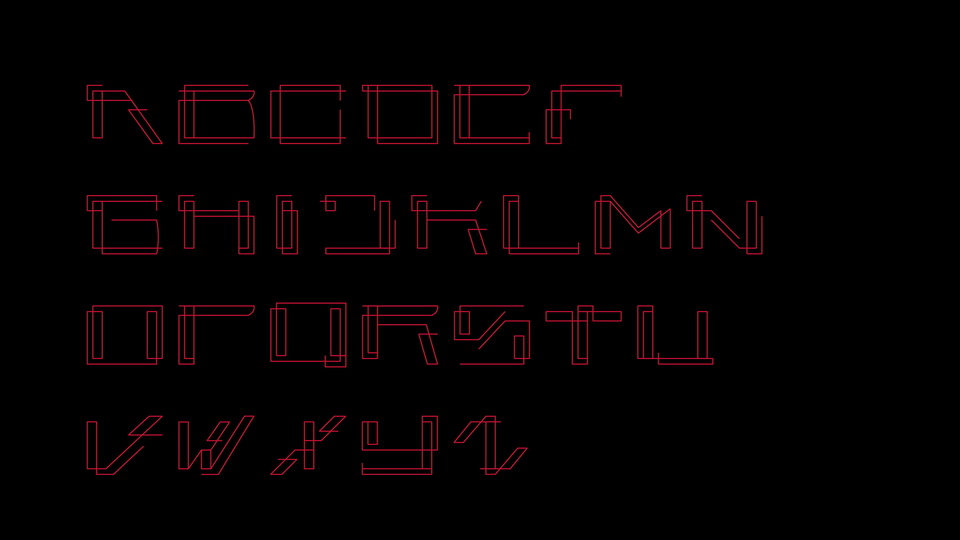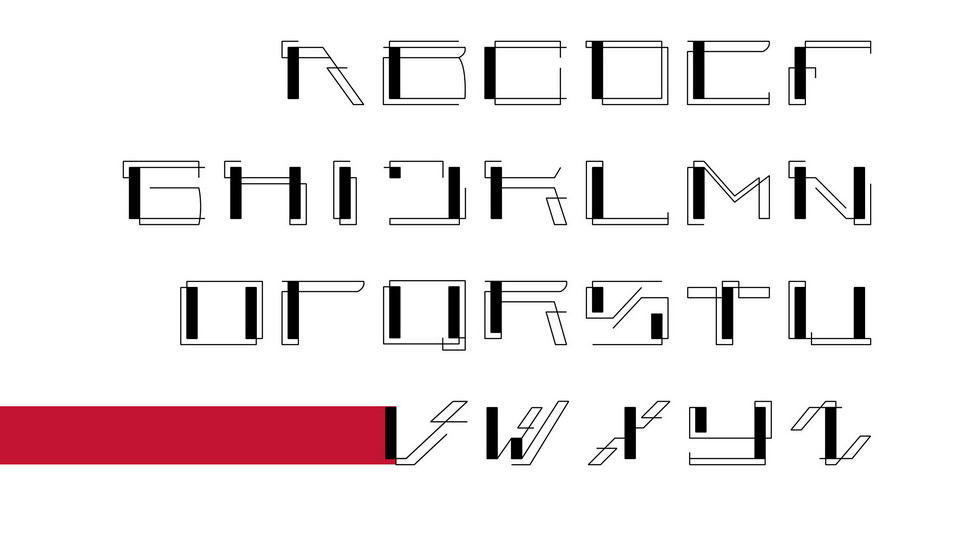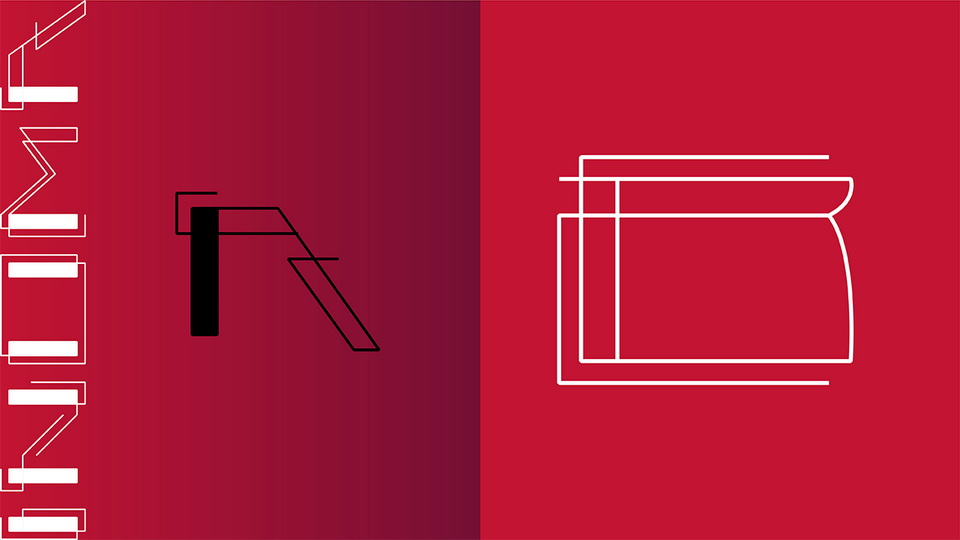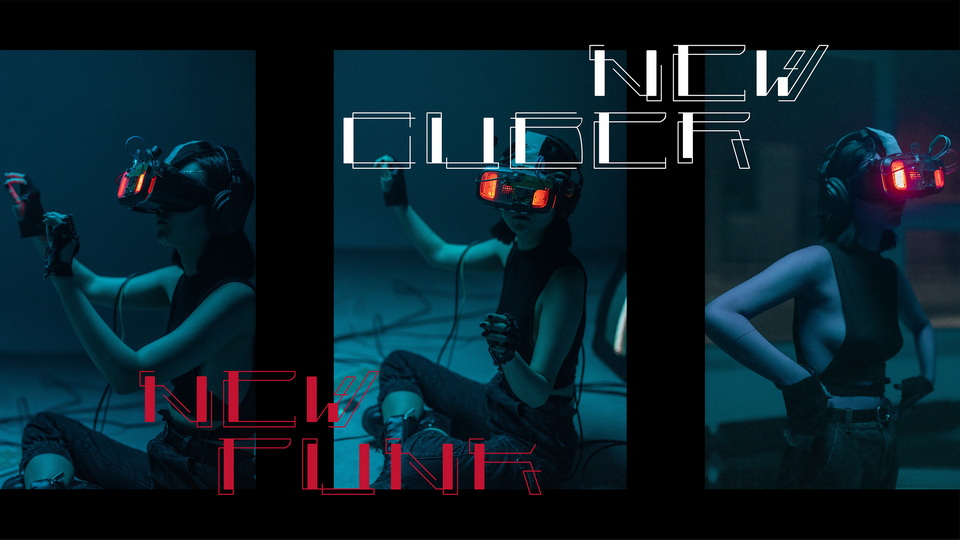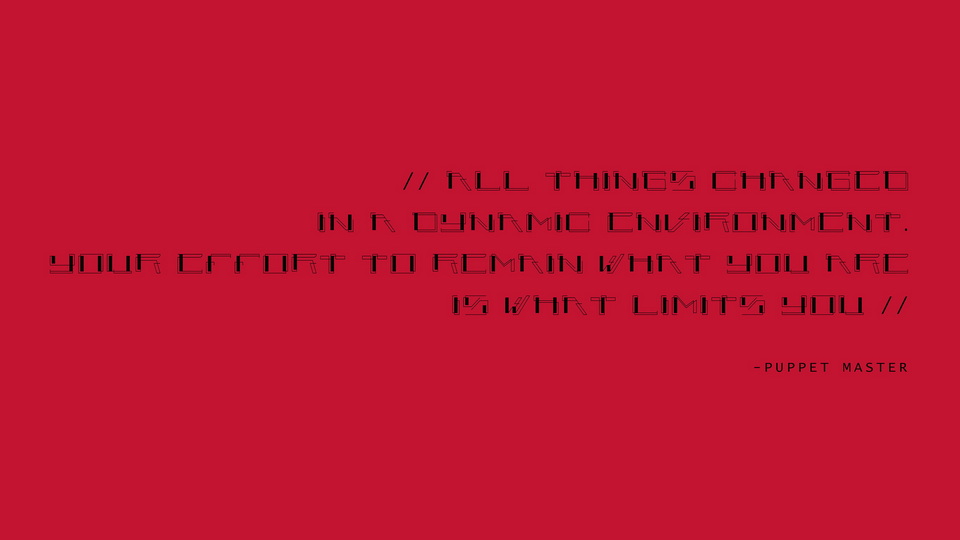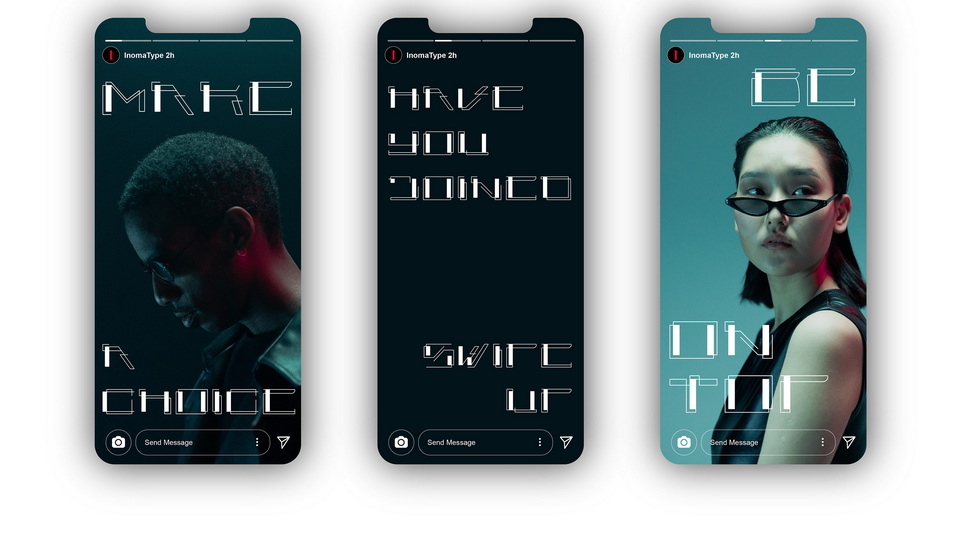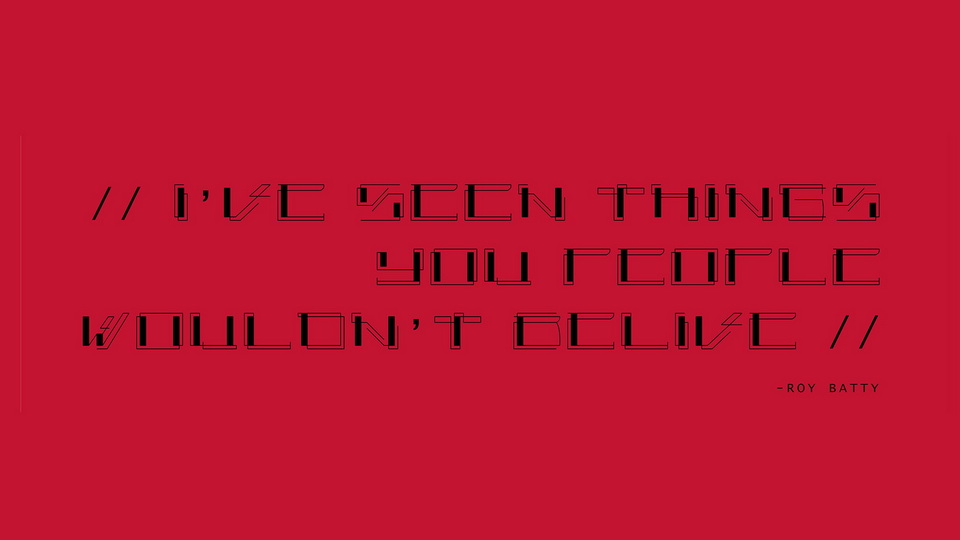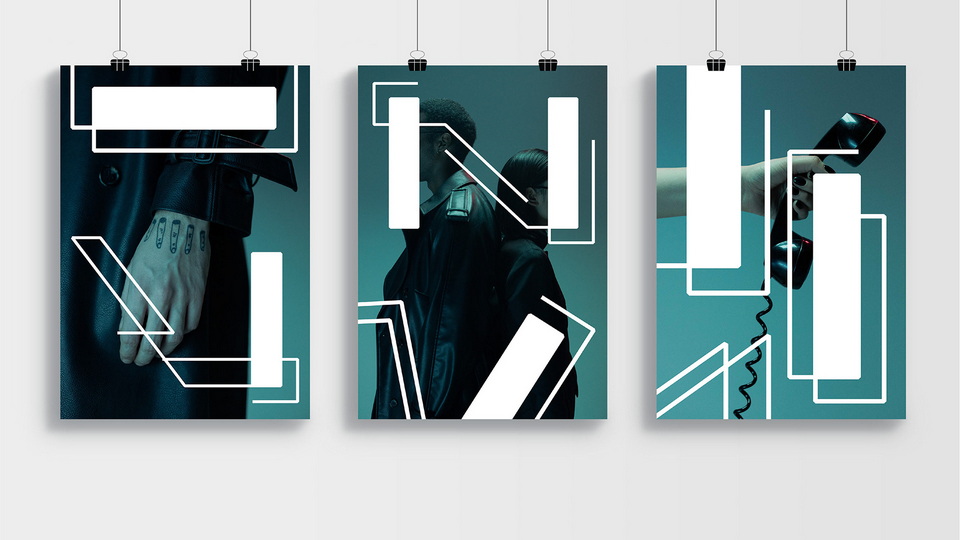
Inoma is a display font created with the idea of dropping legibility rules. Each letter is a unique linear composition.
Inoma is a highly decorative futuristic font with capital letters, so it will look great in headlines and posters.